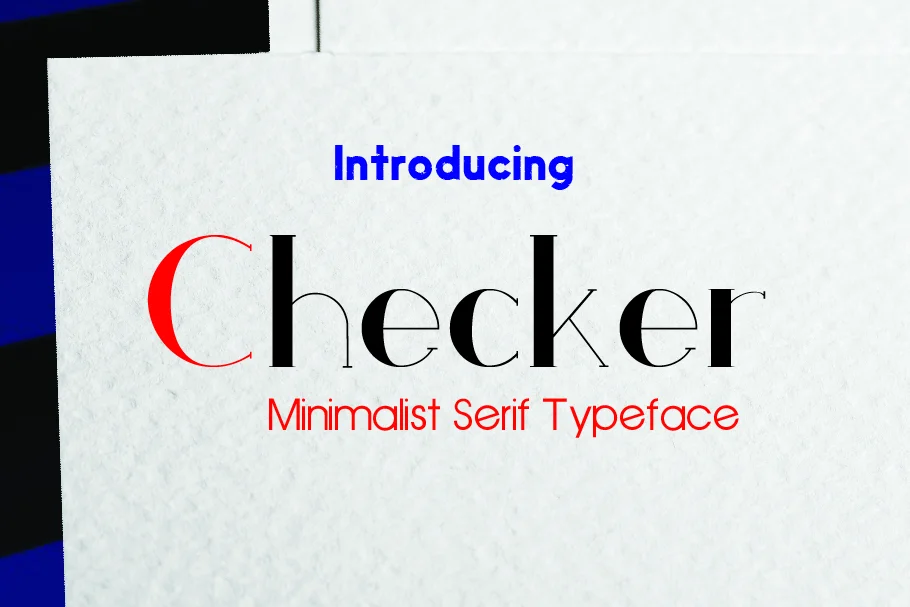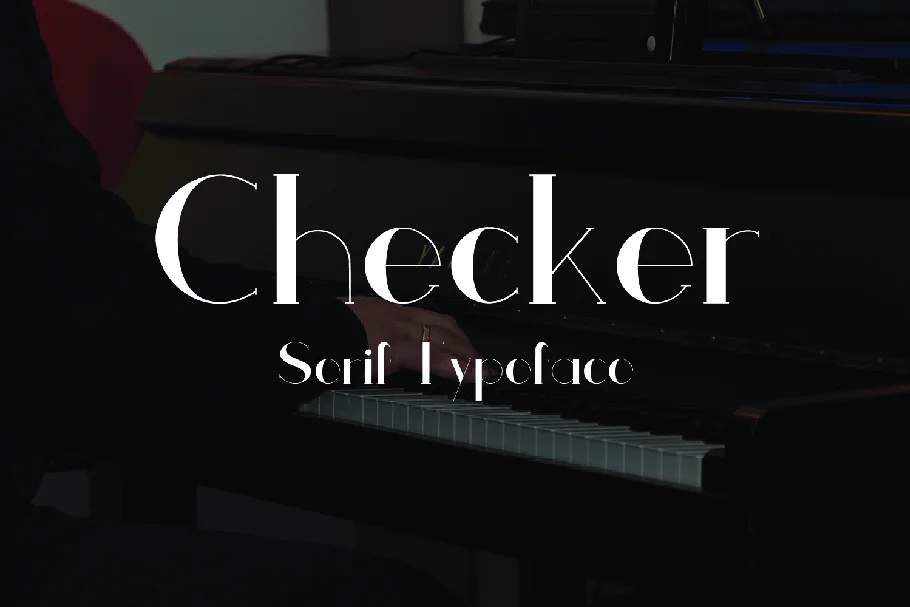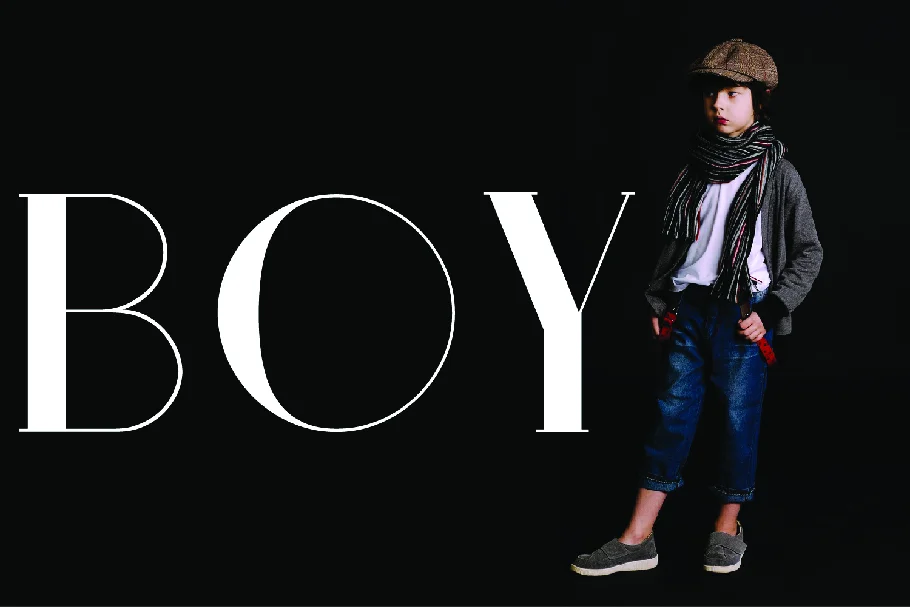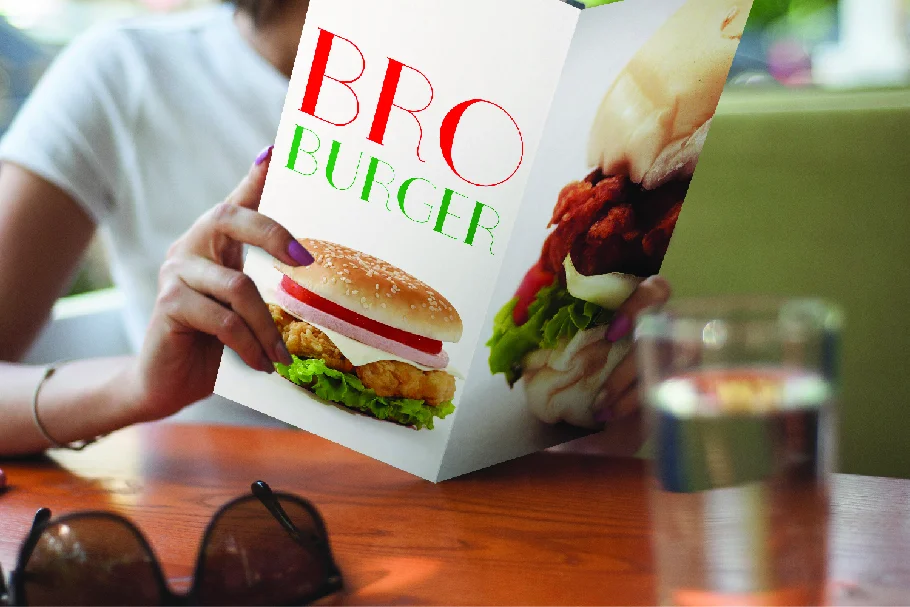
About the Checker Font
Checker is the perfect Serif typeface to create sleek and elegant headlines and logo designs.
Explore your imagination and combine the included styles to give your design more sensation.